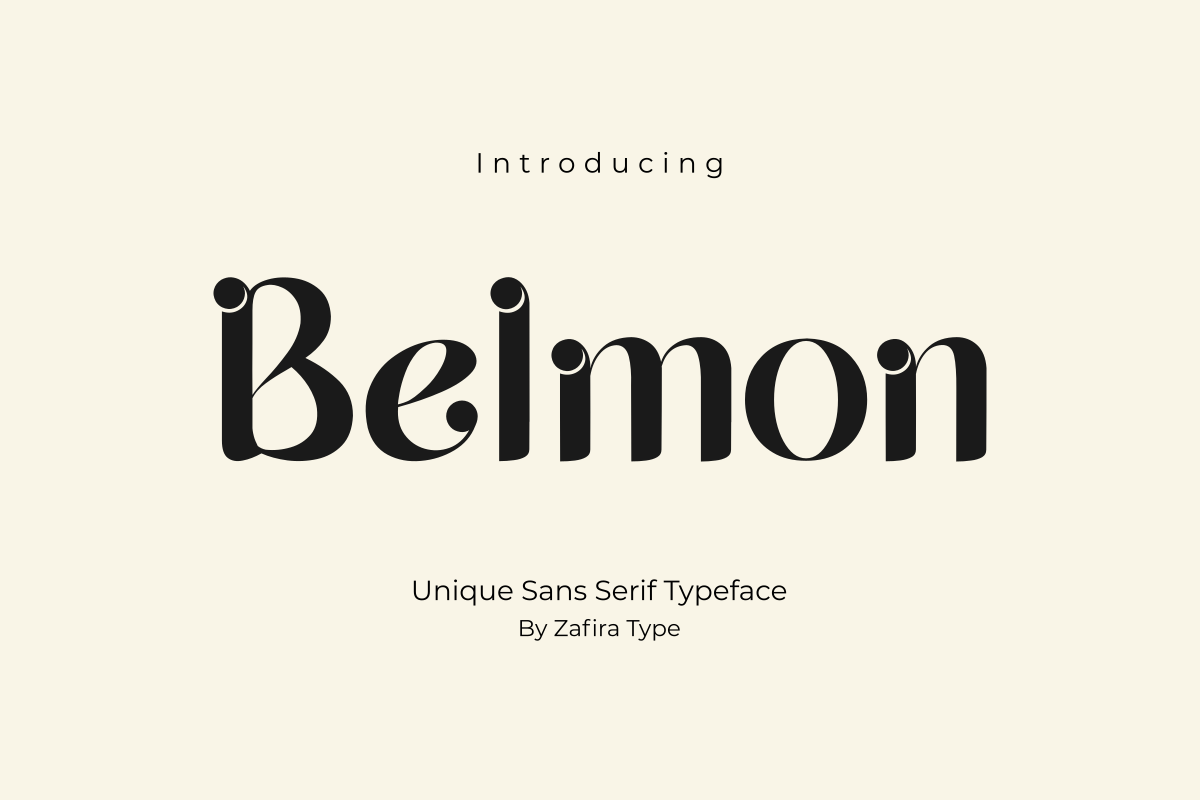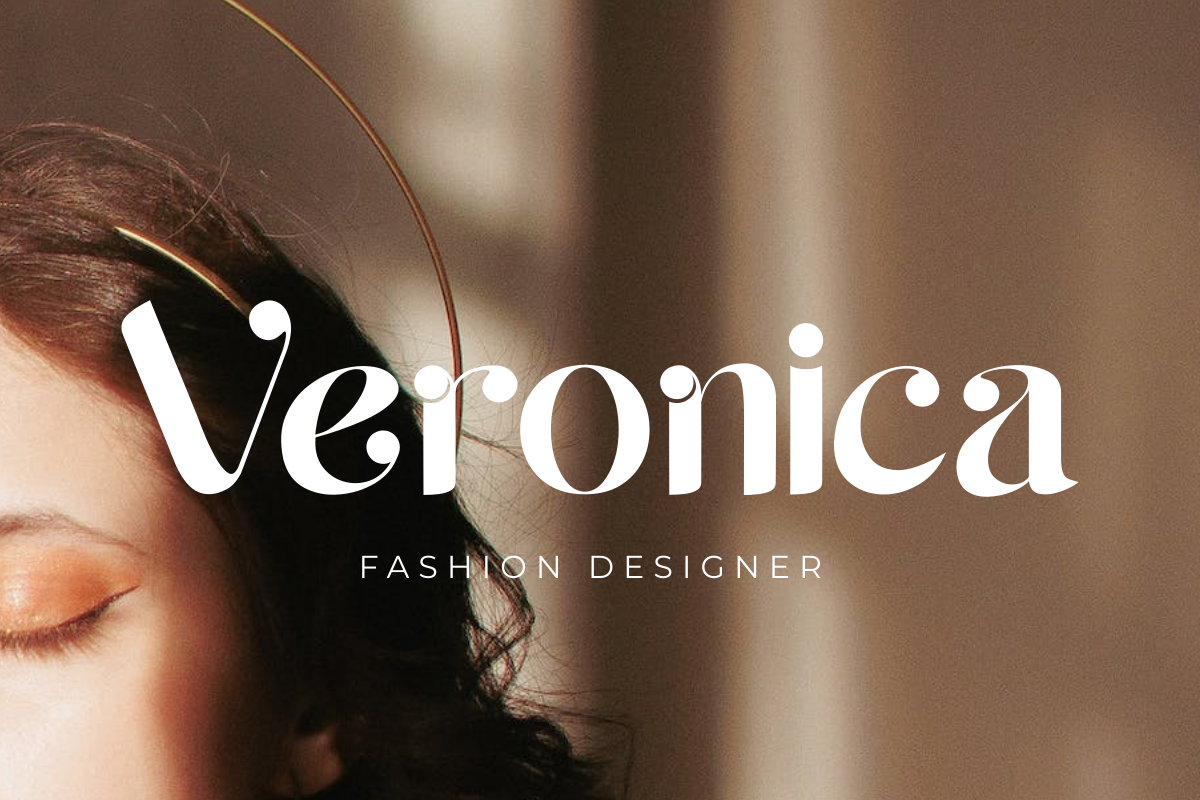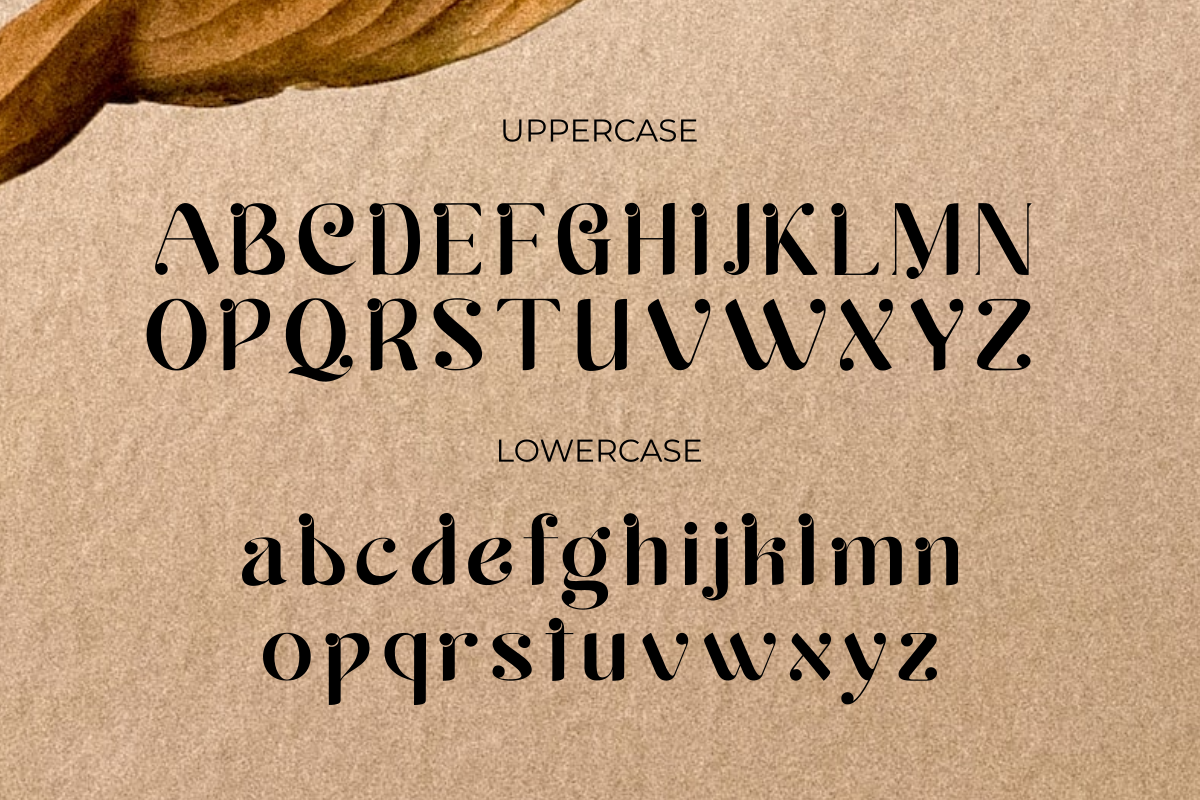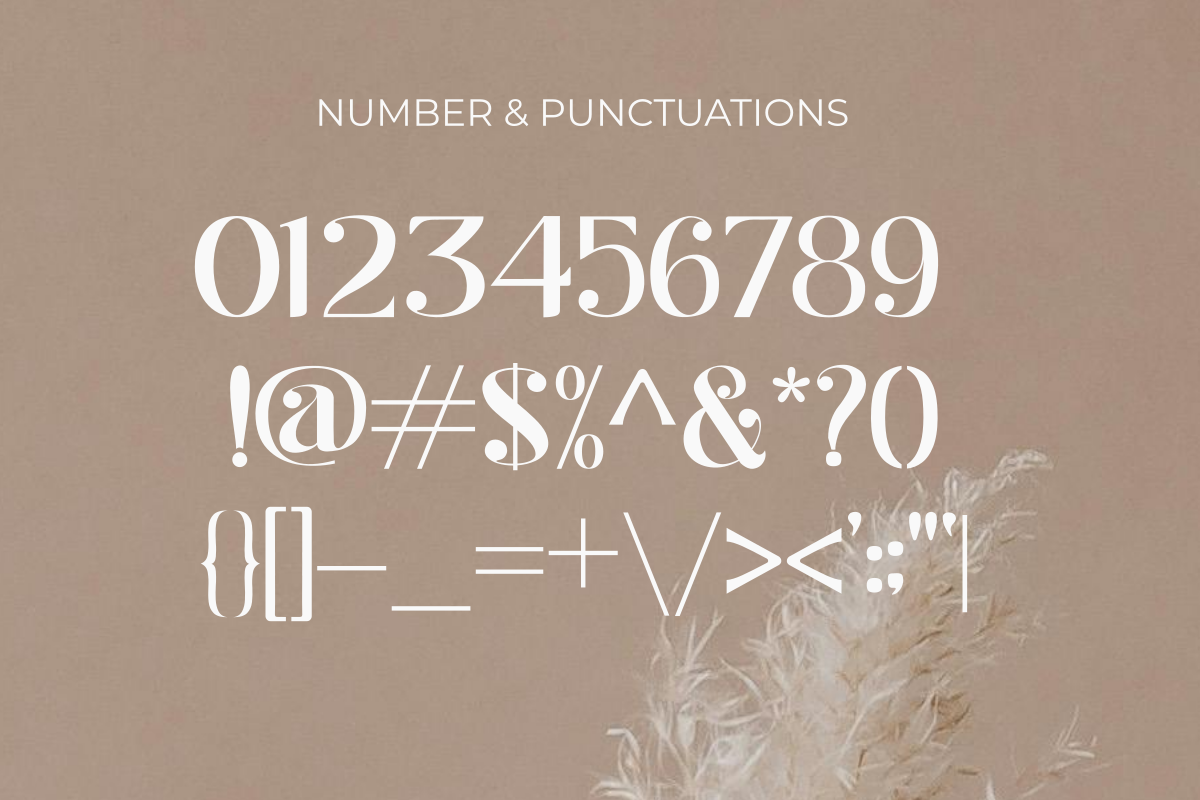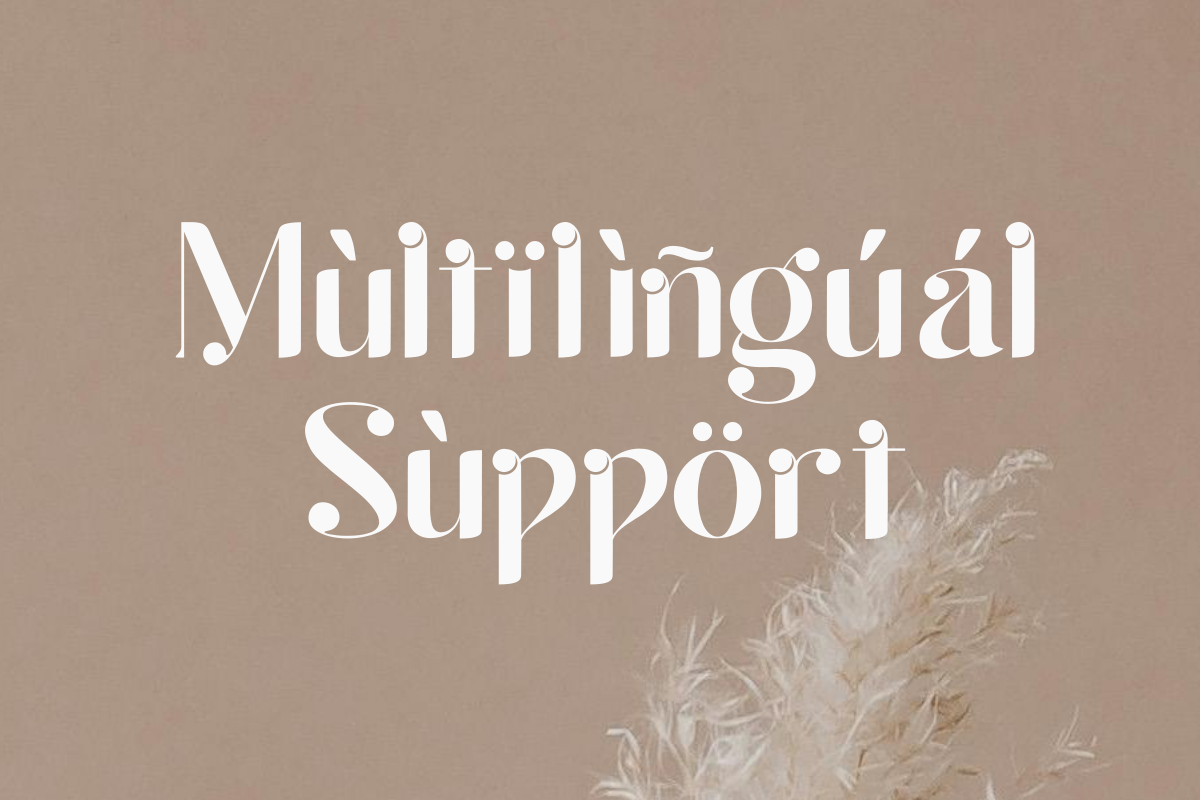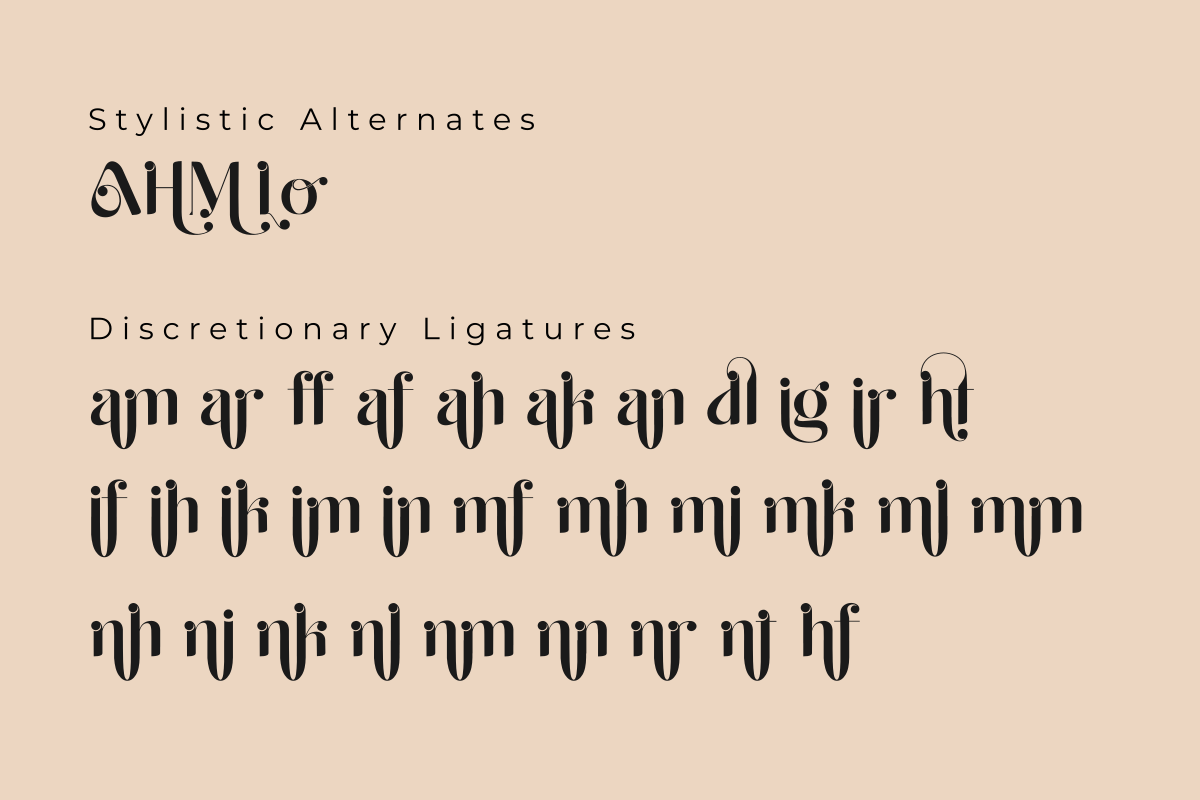
Belmon
Belmon is a modern and elegant sans-serif font. Belmon is well-suited for advertising, branding, logotypes, packaging, titles, headlines, and editorial designs.